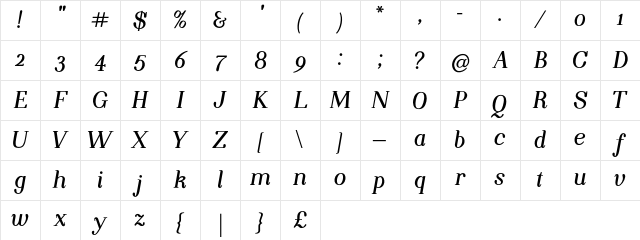
Night Still Comes Bold Italic
Foundry: Ana Parracho
Designer: Ana Parracho
Design Context for Night Still Comes
Night Still Comes is a composed and adaptable typeface that performs quietly and consistently across a wide range of design contexts. The slanted form adds forward momentum and visual energy. Its bold stroke weight gives it real presence on the page.
Pro Tip: Use Night Still Comes for emphasis, pull quotes, and subheadings where its slanted energy can add rhythm to the layout.